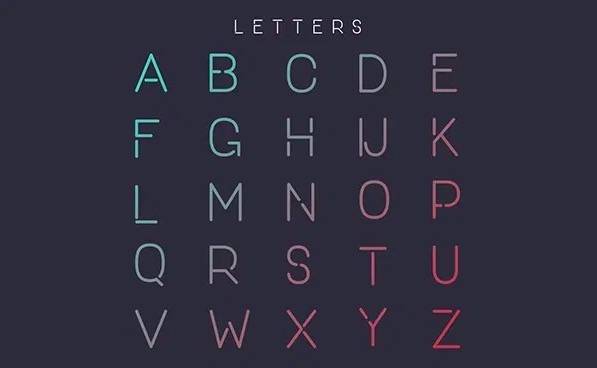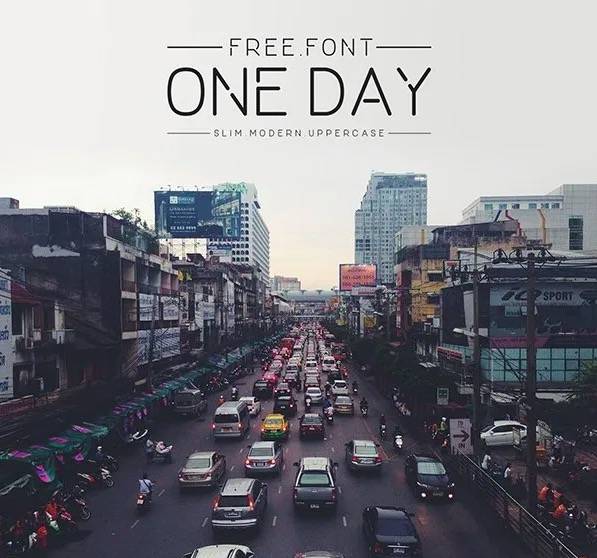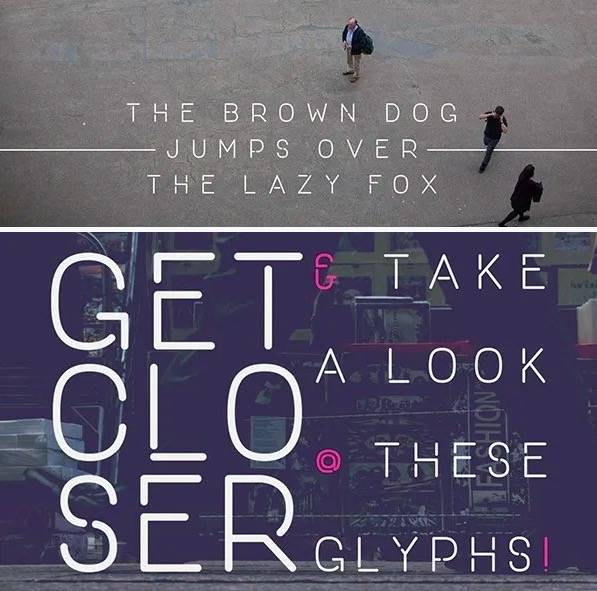
One Day font was designed by Nawras Moneer. This stroke Font is quite elegant and One Day font has 4 styles includes slim, modern, uppercase and stencil. Yes, This font really is a clean sans-serif typeface for designers. You can download it for free to use with many variant purposes.
One day Sans Serif Font